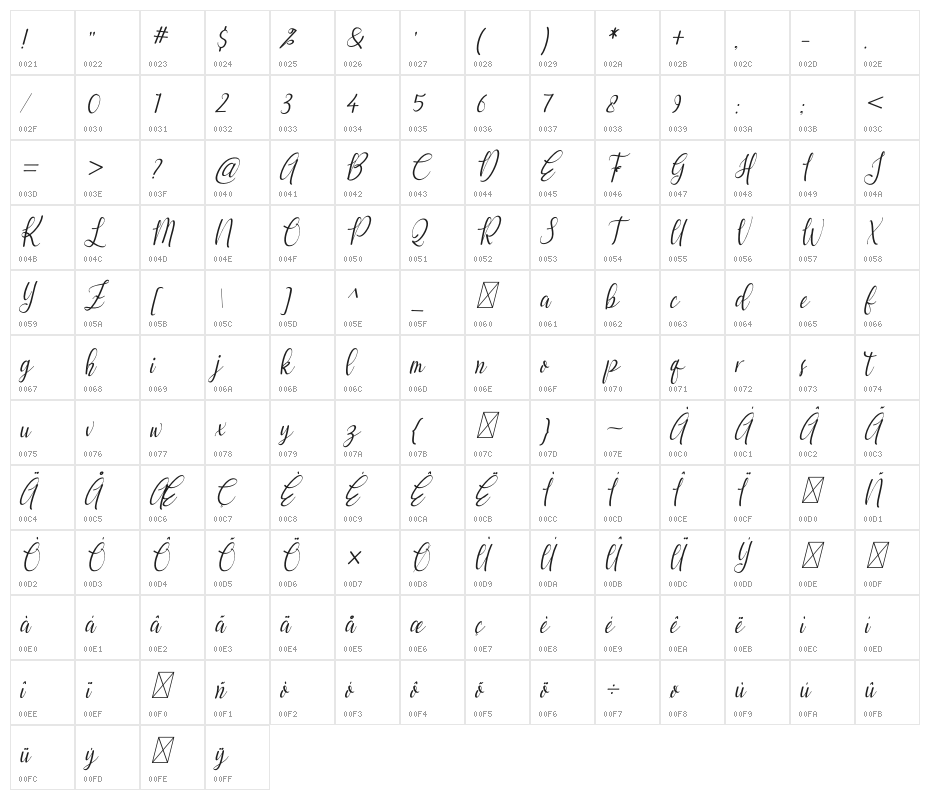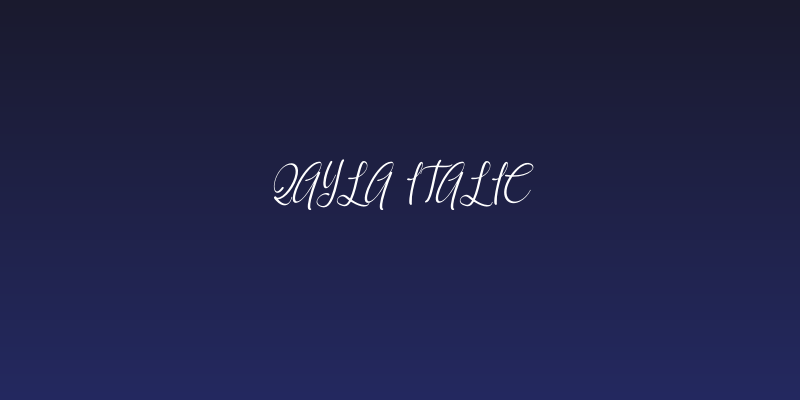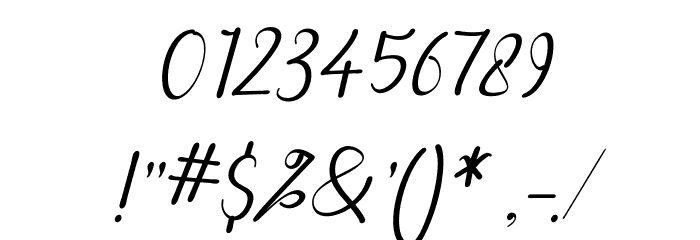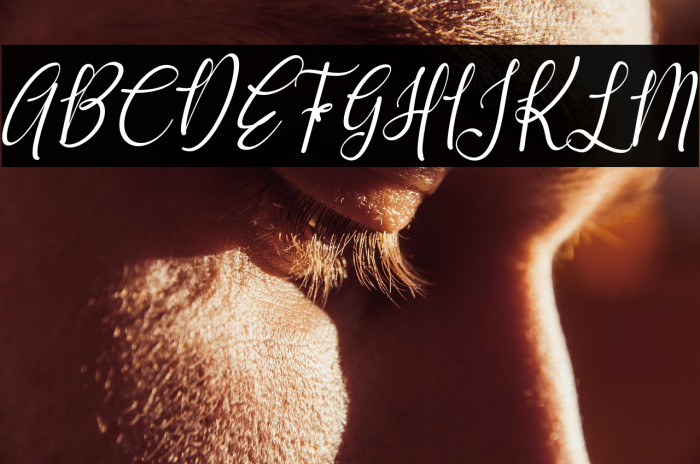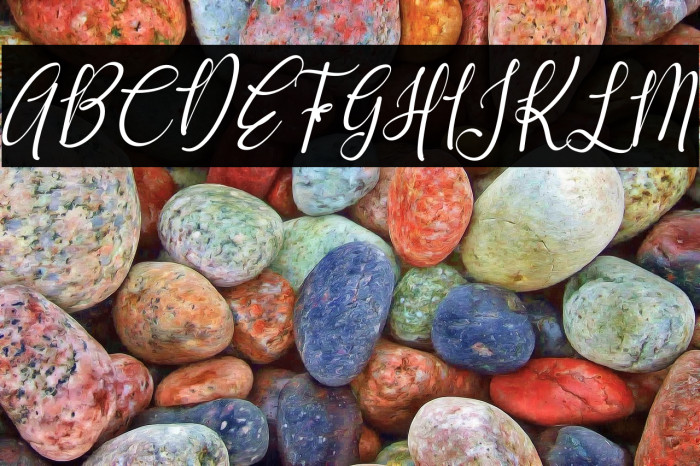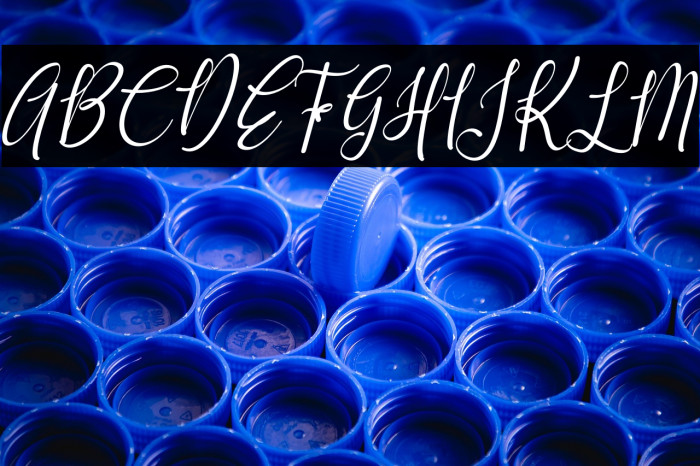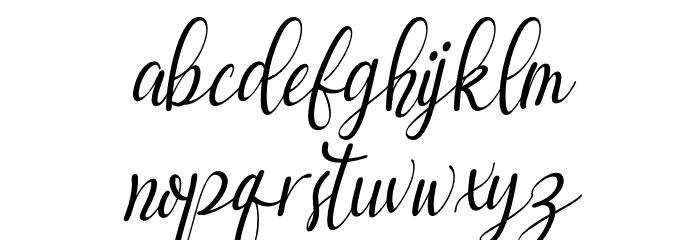
Qayla Italic Font
This elegant script font features a flowing, cursive style with a distinct italic slant. The characters are gracefully connected, creating a seamless and fluid appearance. The uppercase letters are tall and slender, while the lowercase letters maintain a consistent height, adding to the font's readability. The numerals are well-proportioned, matching the overall aesthetic of the alphabet. Special characters are designed with the same attention to detail, ensuring they blend harmoniously with the letters. The font's strokes vary in thickness, providing a dynamic and lively contrast that enhances its decorative appeal.